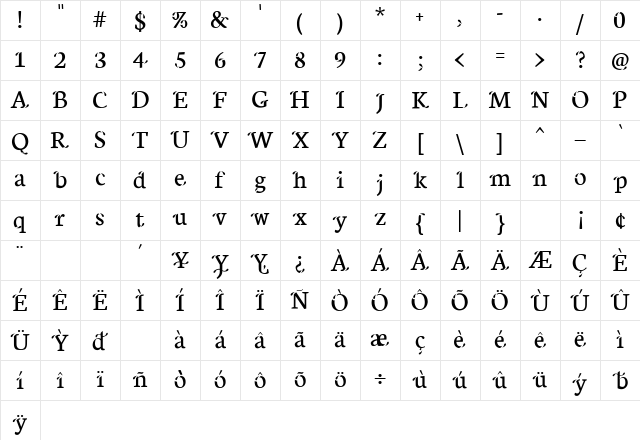
Xisfani regular
Design Context for Xisfani
Xisfani is a composed and adaptable typeface that performs quietly and consistently across a wide range of design contexts.